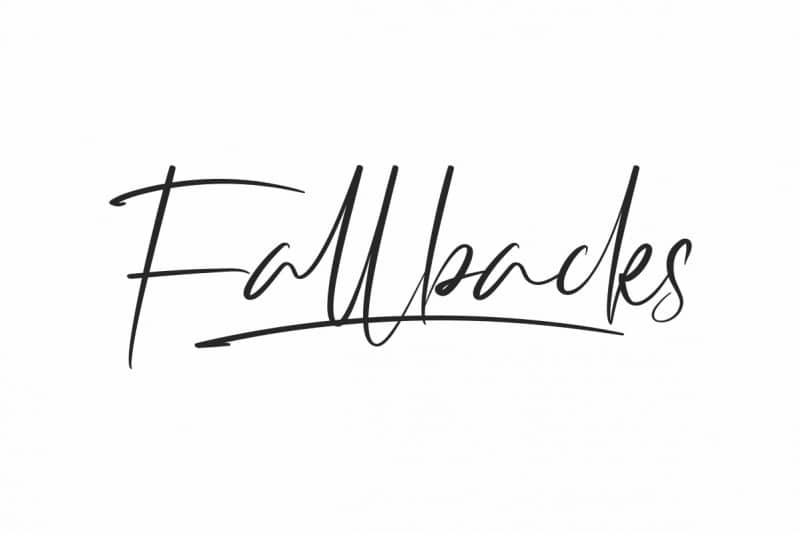
Fallbacks Signature Font
Fallbacks Signature Font, a signature handwriting font by NihStudio. Try the font by typing your own text below. The theme style of the font is elegant, luxury, glamour, gold, vintage, stylish, sophisticated and classic light brush style.
Fallbacks Signature Font will be match for this typeface: wedding, events, real estate, architect, law firm, florist, gardening, makeup artist, travel, hotel, musician etc